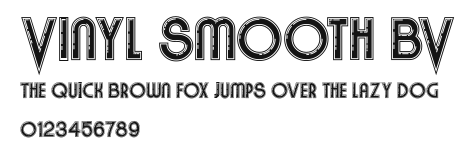
• Font Name: Vinyl Smooth BV
• Full Font Name: Vinyl Smooth BV
About Vinyl Smooth BV.ttf
Vinyl Smooth BV.ttf is a modern, elegant sans-serif font designed for ultimate readability and visual harmony. Perfect for branding, headlines, web design, and print materials.